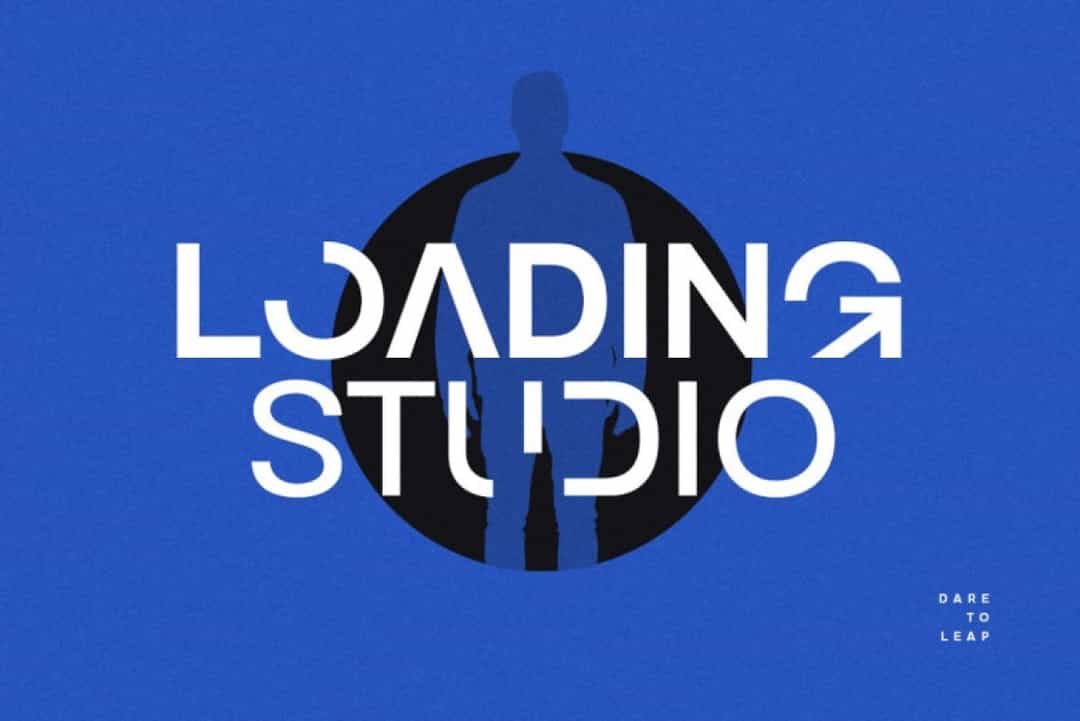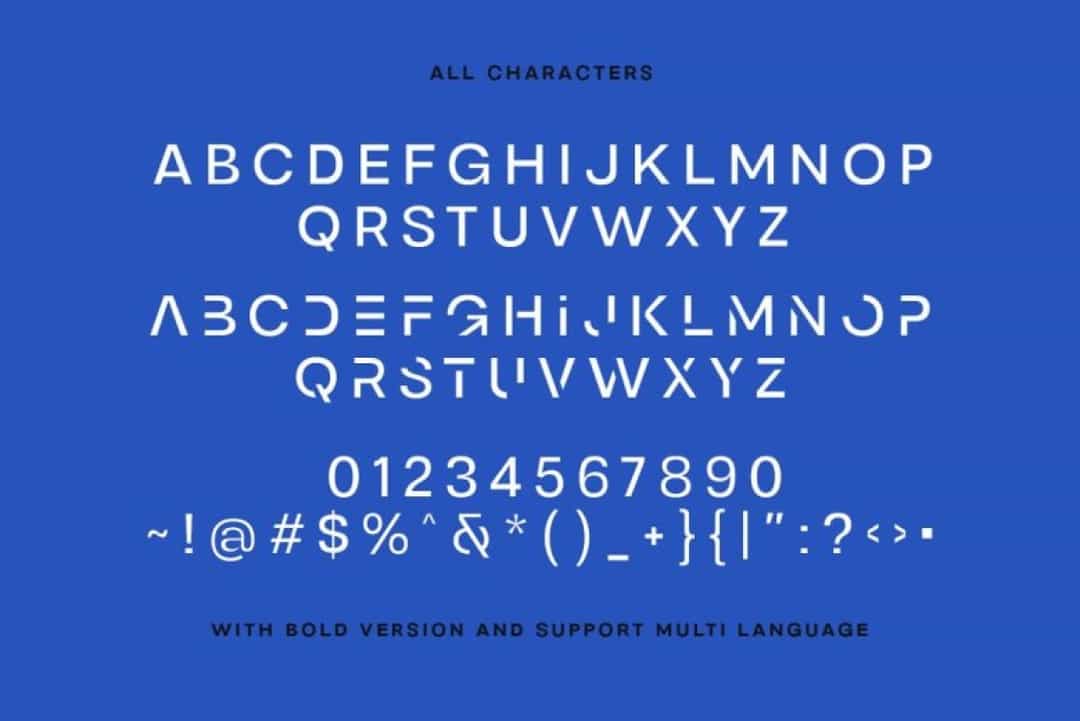
Discover Logirent Logo Typeface, part of the Sans Serif Logos collection—a versatile and unique font perfect for adding a personal touch to your projects. Download it for free and enjoy crafting designs with style, from invitations to social media posts. This font is available exclusively for personal use, giving you the freedom to create without limits. Unlock your creativity with Logirent Logo Typeface today!
Logirent is an elegant typeface created for logotypes. With its custom ligatures and its variety of uses – headlines, logos signs and formal formats such as invitations labels logos wedding cards greeting cards fashion stationary novels labels or advertisements this font stands out.